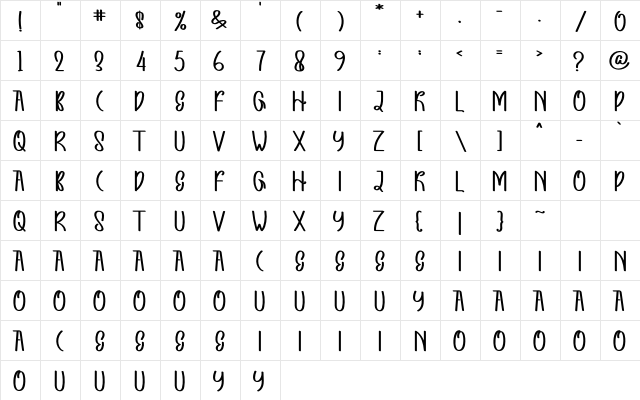
DIARY RABBIT Regular Font Preview
DIARY RABBIT Regular
Design Context for DIARY RABBIT Typeface
DIARY RABBIT is a composed and adaptable typeface that performs quietly and consistently across a wide range of design contexts.